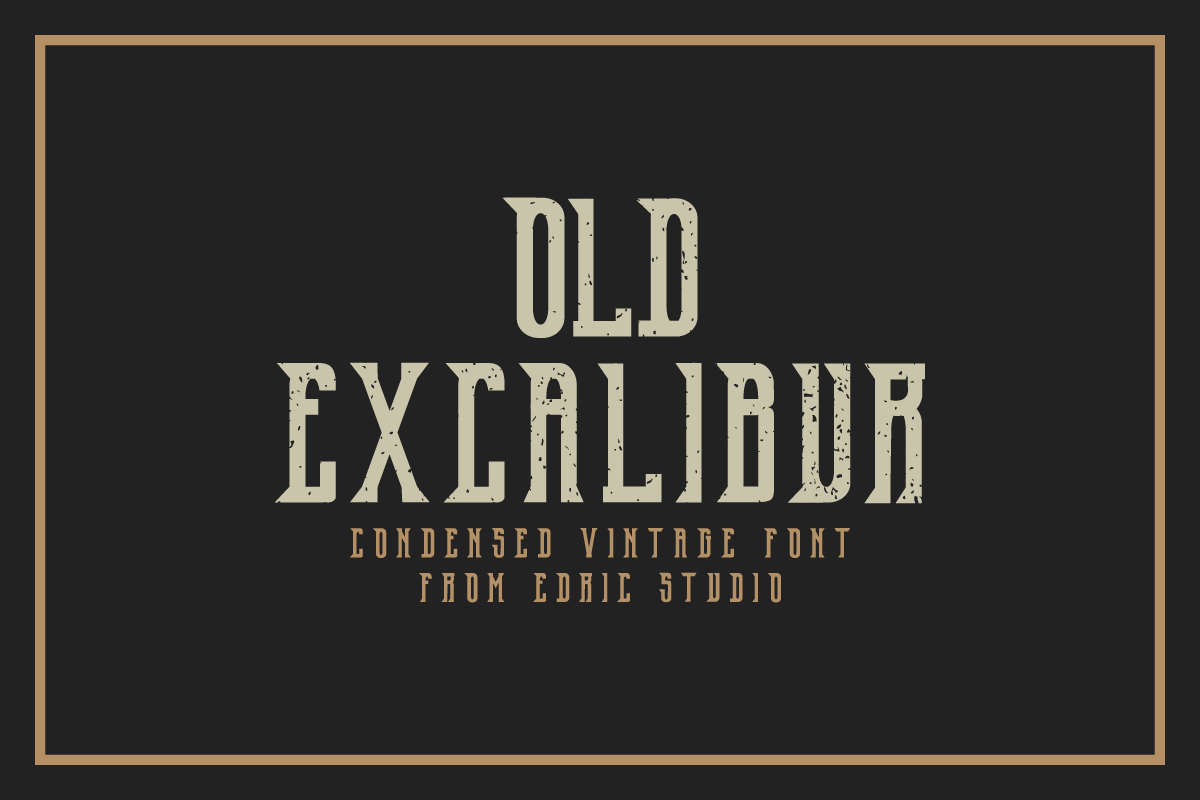
OldExcalibur
Hi Everyone! Introducing our newest font : OldExcalibur! This is a new vintage sans typeface. It has a fresh, elegant, unique and stylish glyph.It has 4 styles: regular, grunge, stroke, vintage This font will be Great for branding, logo, stationery, business card, signage, flyer, brochure etc. There are many industries that is suitable for this font : cafe, music, restaurant, motorcycle, racing, etcThis font will Work on PC & Mac with Simple installations. Accessible in the Adobe Illustrator, Adobe Photoshop, Adobe InDesign, even work on Microsoft Word. It’s also PUA Encoded Characters – Fully accessible without additional design software.Purchase with confidence! =)